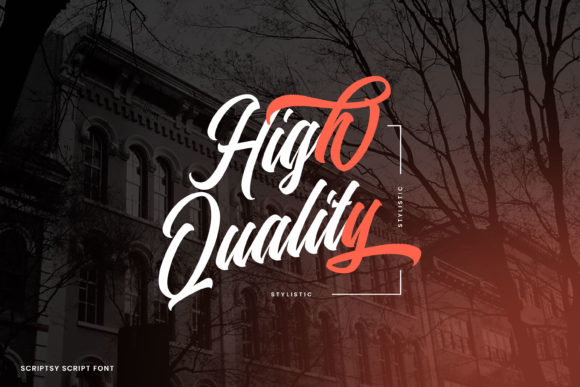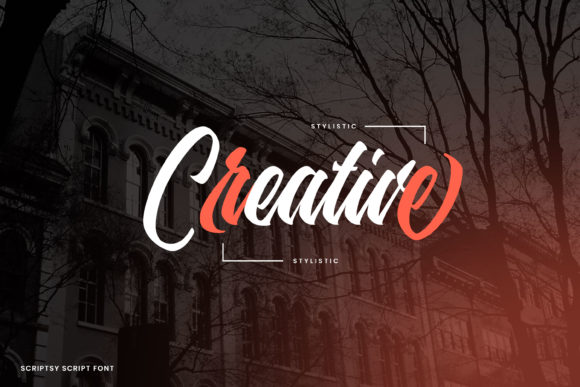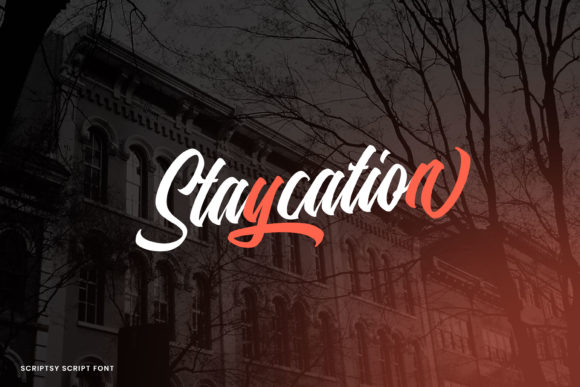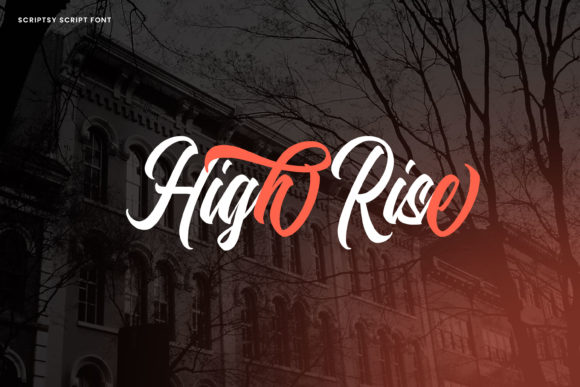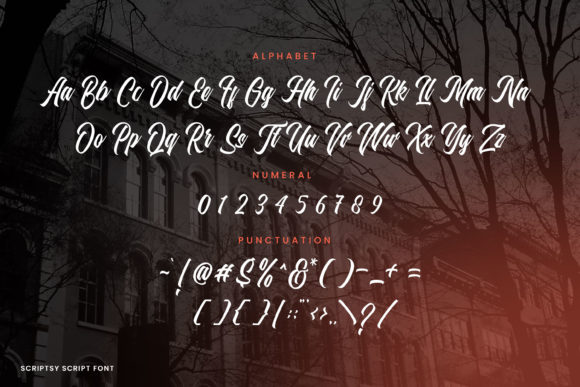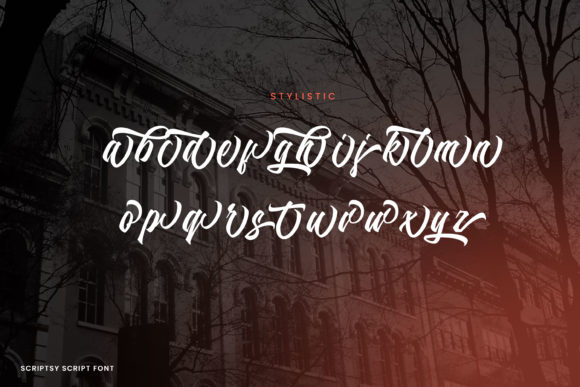
Introduction to Scriptsy Font
The moment of pure creativity – you’re brainstorming ideas for your next design project, and suddenly, the perfect font pops into your mind. For designers, this moment is pure magic. But what makes a font truly special? For us, it’s all about finding that perfect balance of style and functionality. And that’s where the Scriptsy Font comes in – a modern script font that’s sure to elevate any design to the next level.
Whether you’re working on an ad campaign, creating a logo, or developing a brand identity, the Scriptsy Font is an invaluable resource for any creative project. Its high-quality design and versatility make it a go-to choice for designers who demand the best. And the best part? You can download it for free, making it an accessible design resource for anyone looking to take their project to the next level.
Key Features of Scriptsy Font
- High-quality design for creative projects: Scriptsy Font is a unique and elegant script font perfect for adding a touch of sophistication to your designs.
- Transparent background: This font features a transparent background, allowing you to easily layer it over images or other design elements.
- High-resolution design: Scriptsy Font is designed at 300 DPI, ensuring that it looks crisp and clear even when scaled up to large sizes.
- Perfect for invitations, logos, and other creative projects: The elegant and flowing design of Scriptsy Font makes it ideal for use in invitations, logos, and other creative projects where a touch of sophistication is desired.
Honest Review: Scriptsy Font
As a designer, I’m always on the lookout for high-quality design resources that can elevate my creative projects. The Scriptsy Font is one such resource that caught my attention recently.
What works well with the Scriptsy Font is its elegant and sophisticated design, making it perfect for a variety of projects, from wedding invitations to branding materials. The font is highly customizable, allowing users to adjust the size, color, and opacity to suit their needs. I also appreciate the fact that the font is available for free download, making it an excellent design resource for designers on a budget.
Here are some key features that make the Scriptsy Font stand out:
- High-quality design suitable for creative projects
- Transparent background, making it easy to use on any background
- Customizable size, color, and opacity
However, I do have a few limitations with the Scriptsy Font:
<⚠️> Limited font weights and styles available
Overall, I’m impressed with the Scriptsy Font’s elegant design and high level of customization. While it may have some limitations, it’s an excellent design resource for designers working on creative projects. I would highly recommend it for anyone looking for a high-quality script font.
Scriptsy Font
The Scriptsy Font is a high-quality, free download that’s perfect for any creative project. With its elegant and stylish design, it’s an excellent addition to any design resource.
Tips for Getting the Most Out of Scriptsy Font
Use the Scriptsy Font in conjunction with other design resources to create a unique and eye-catching design.
The Scriptsy Font is perfect for:
- Blog and website headers
Q: Is the Scriptsy Font suitable for use in high-resolution designs?
Yes, the Scriptsy Font is designed to be high-quality and suitable for use in high-resolution designs. The font is optimized for use at various resolutions, ensuring that it looks great whether you’re working on a low-resolution design or a high-resolution project.